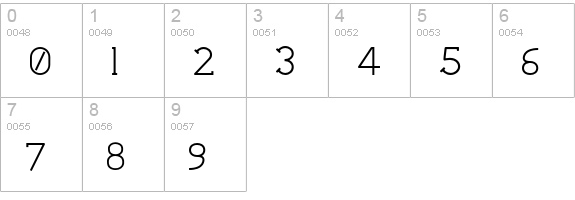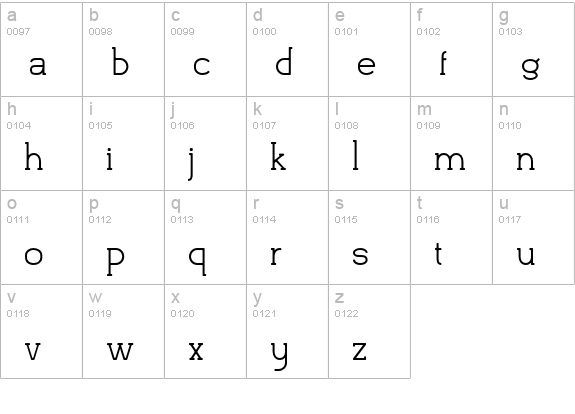
Flatform Light is a refined, elegant variant in the Flatform typeface family \xE2\x80\x94 well suited to elegant body text, refined sub-headings, and luxury branding.
Flatform Light font is a modern and sleek typeface that exudes elegance and sophistication. Its clean lines and geometric shapes make it perfect for a wide range of design projects, from branding to editorial layouts. The light weight of the font adds a touch of delicacy and refinement to any text. What sets Flatform Light font apart is that it is not only stylish and versatile, but also available for free download at FontsMarket.com. This means that designers and creatives can easily access this high-quality font without any cost, making it an ideal choice for budget-conscious projects. With Flatform Light font, you can elevate your designs with a touch of contemporary flair, all while enjoying the convenience of a free download. Let this font inspire your creativity and take your projects to the next level.